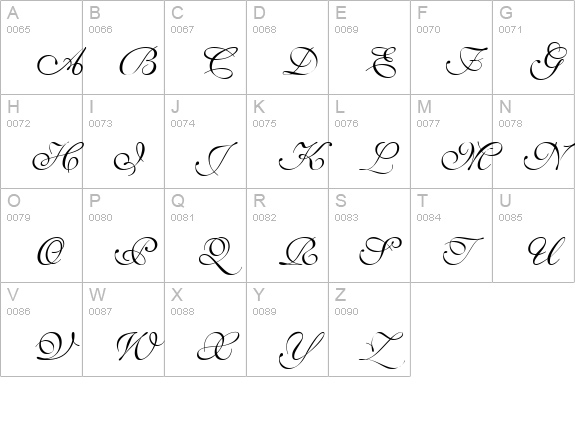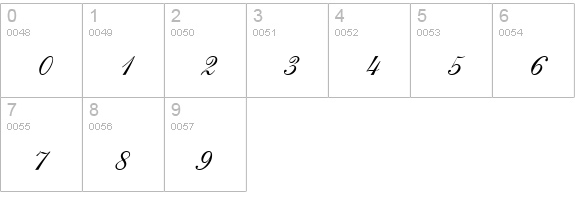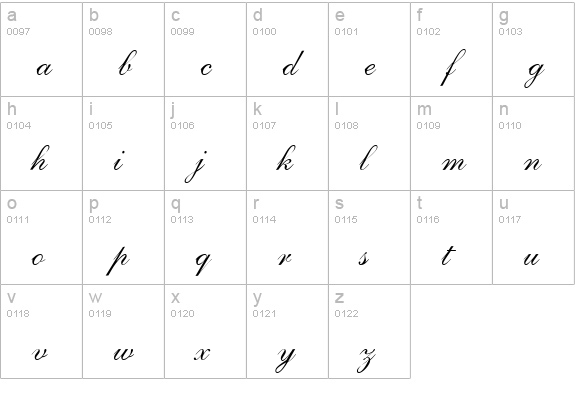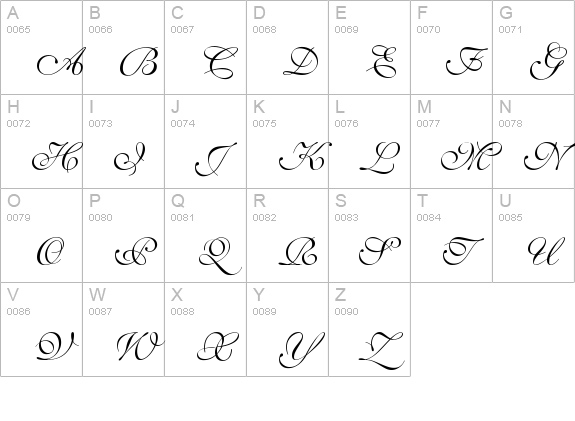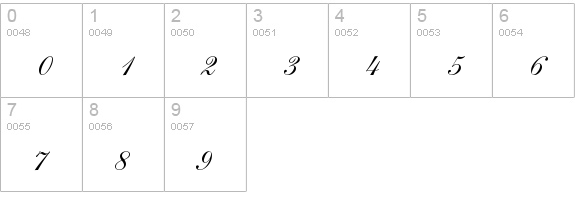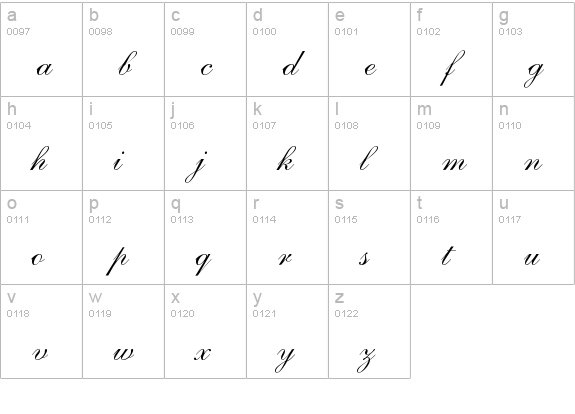
Pen Tweaks Three SSi font is a captivating and versatile typeface that effortlessly combines elegance with a touch of playfulness. Designed with meticulous attention to detail, this font is perfect for adding a unique and stylish twist to any project. Featuring a hand-drawn appearance, Pen Tweaks Three SSi font exudes an organic charm that is both visually appealing and highly legible. Its flowing lines and graceful curves give it a distinctive personality, making it suitable for a wide range of design applications. Whether you're creating eye-catching logos, elegant wedding invitations, or engaging social media graphics, Pen Tweaks Three SSi font will undoubtedly make a lasting impression. Its versatility allows it to seamlessly adapt to various design styles, from minimalistic to bold and vibrant. What makes Pen Tweaks Three SSi font even more appealing is the fact that it is free to download at FontsMarket.com. This means that you can effortlessly incorporate this stunning font into your projects without any additional cost. Its availability ensures that designers and creatives alike can enjoy the benefits of this remarkable typeface without any limitations. So, if you're looking for a font that effortlessly combines elegance, playfulness, and versatility, look no further than Pen Tweaks Three SSi font. Download it for free at FontsMarket.com and elevate your designs to new heights of sophistication and creativity.